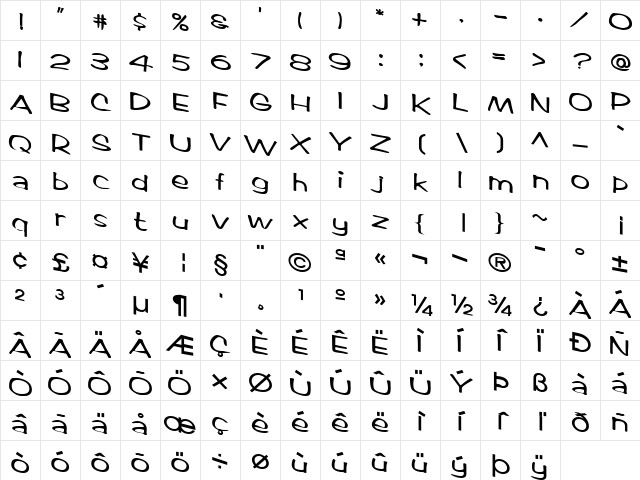
Complete WordsWorthType12 Bold glyph index. Displaying only characters natively supported by WordsWorthType12 Bold font.
WordsWorthType12 is a composed and adaptable typeface that performs quietly and consistently across a wide range of design contexts. Its bold stroke weight gives it real presence on the page.